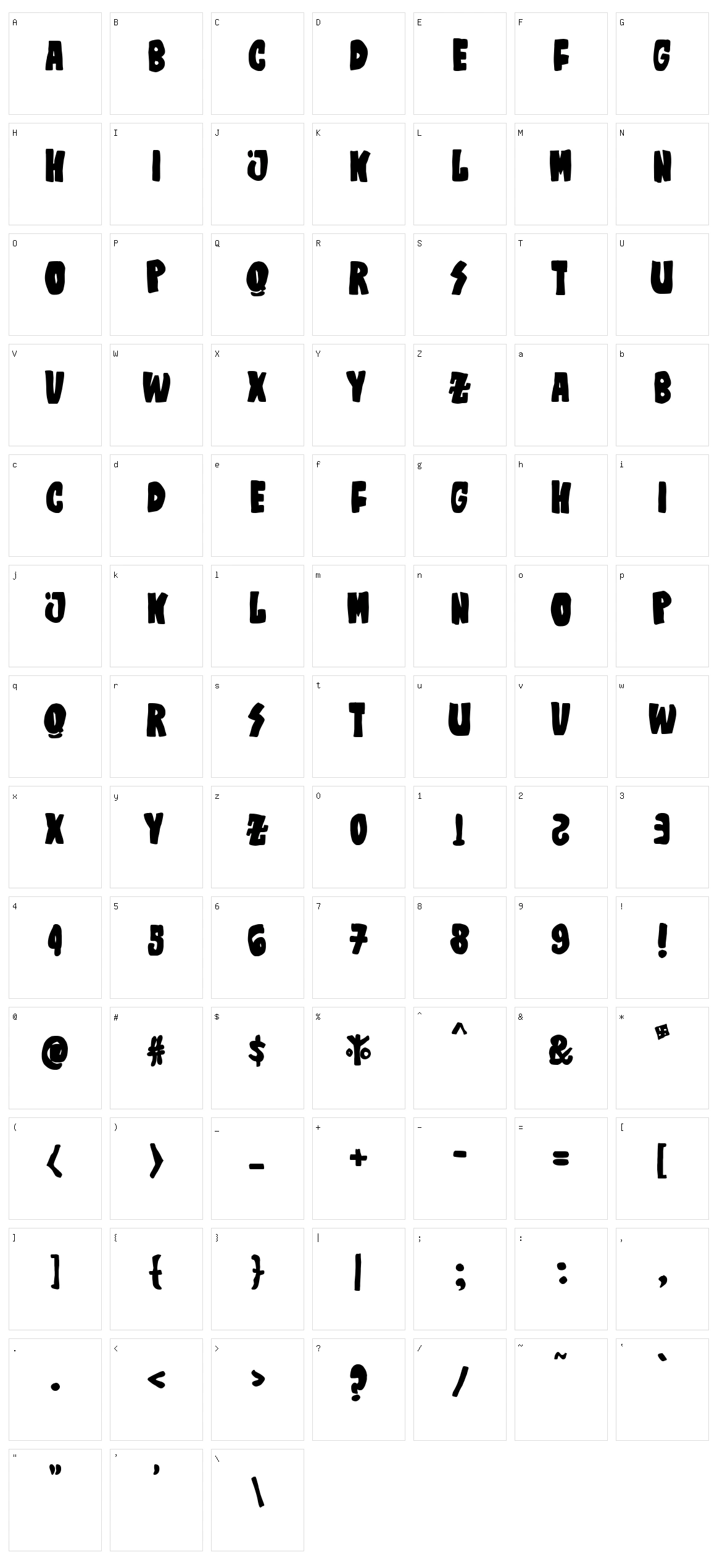
The free font Se está lianado! is carefully designed by Woodcutter, showcasing a thoughtful balance of creativity and usability and falls under the Cartoon font style. When you download the ZIP file, it contains only 66.54 KB of font files, making it lightweight and quick to download. Please review the license details below to understand permitted usage and distribution rights. If license information is not available, we recommend using this font for personal projects only or contacting the author directly for commercial usage permissions.